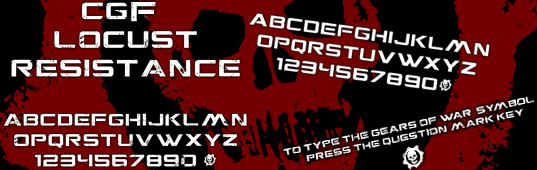
Font name: | CGF Locust Resistance |
Author: | CGF Chris Garrett Fonts |
Note by CGF Chris Garrett Fonts | |
This font was made to replicate the Gears Of War Logo. |